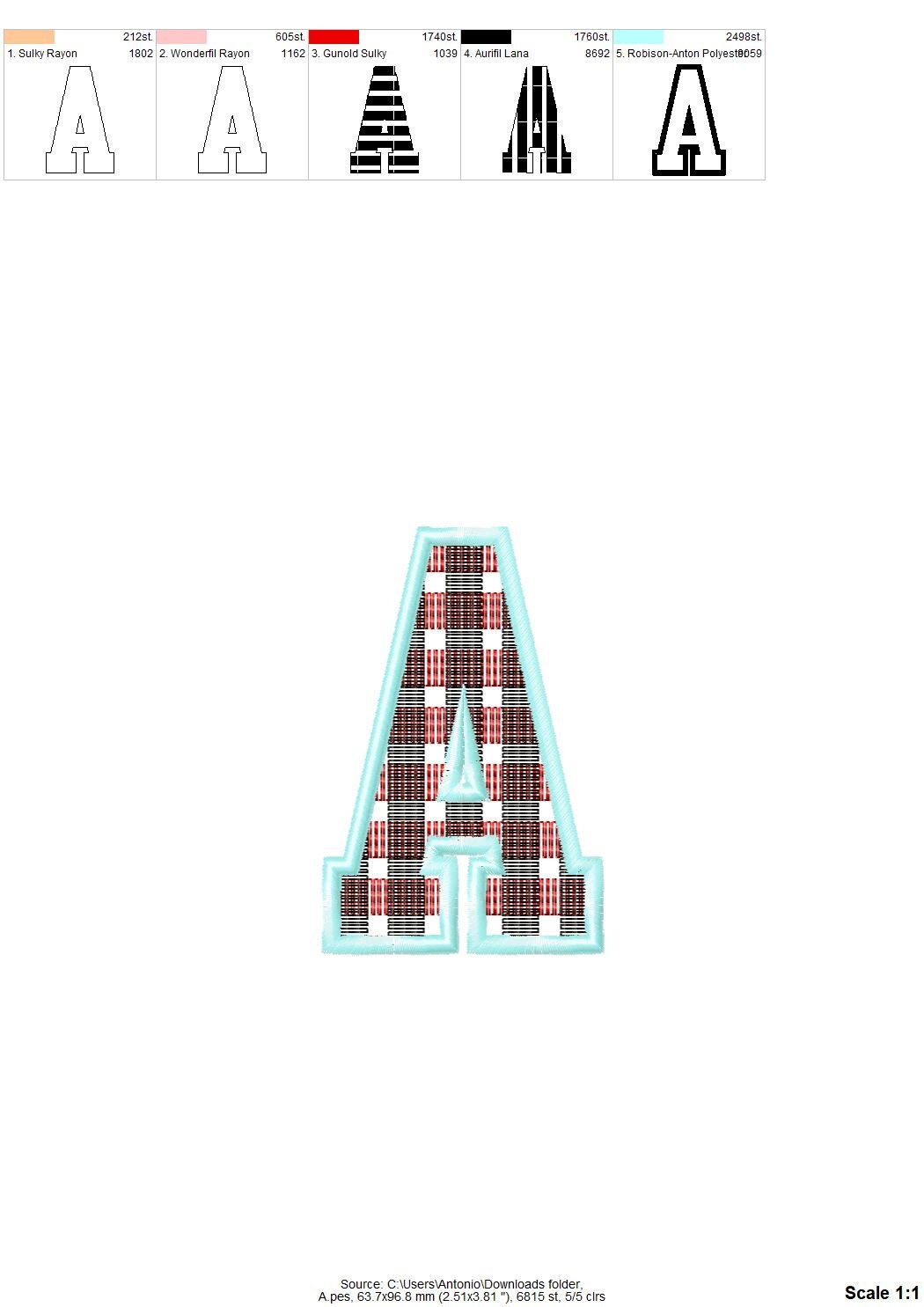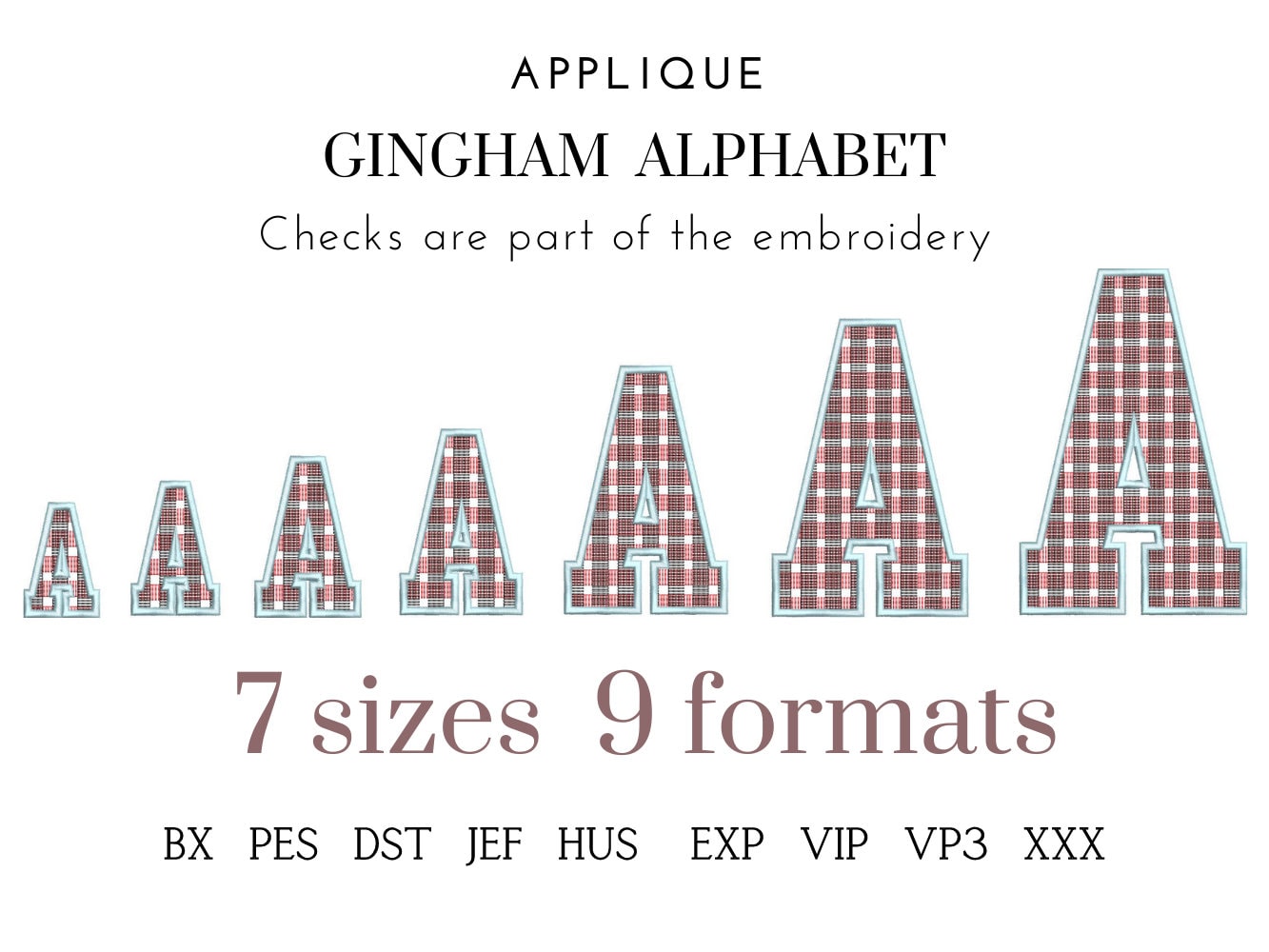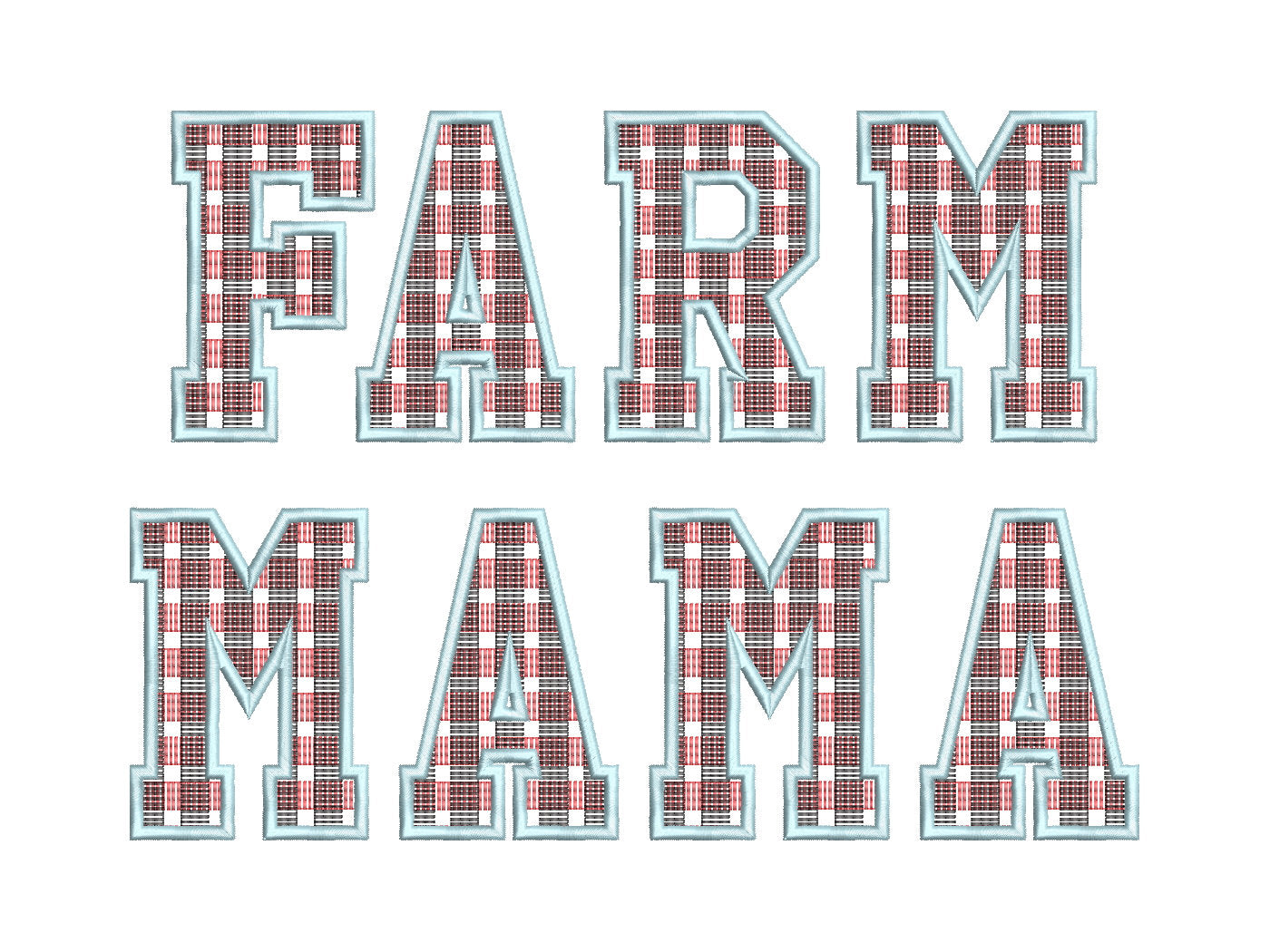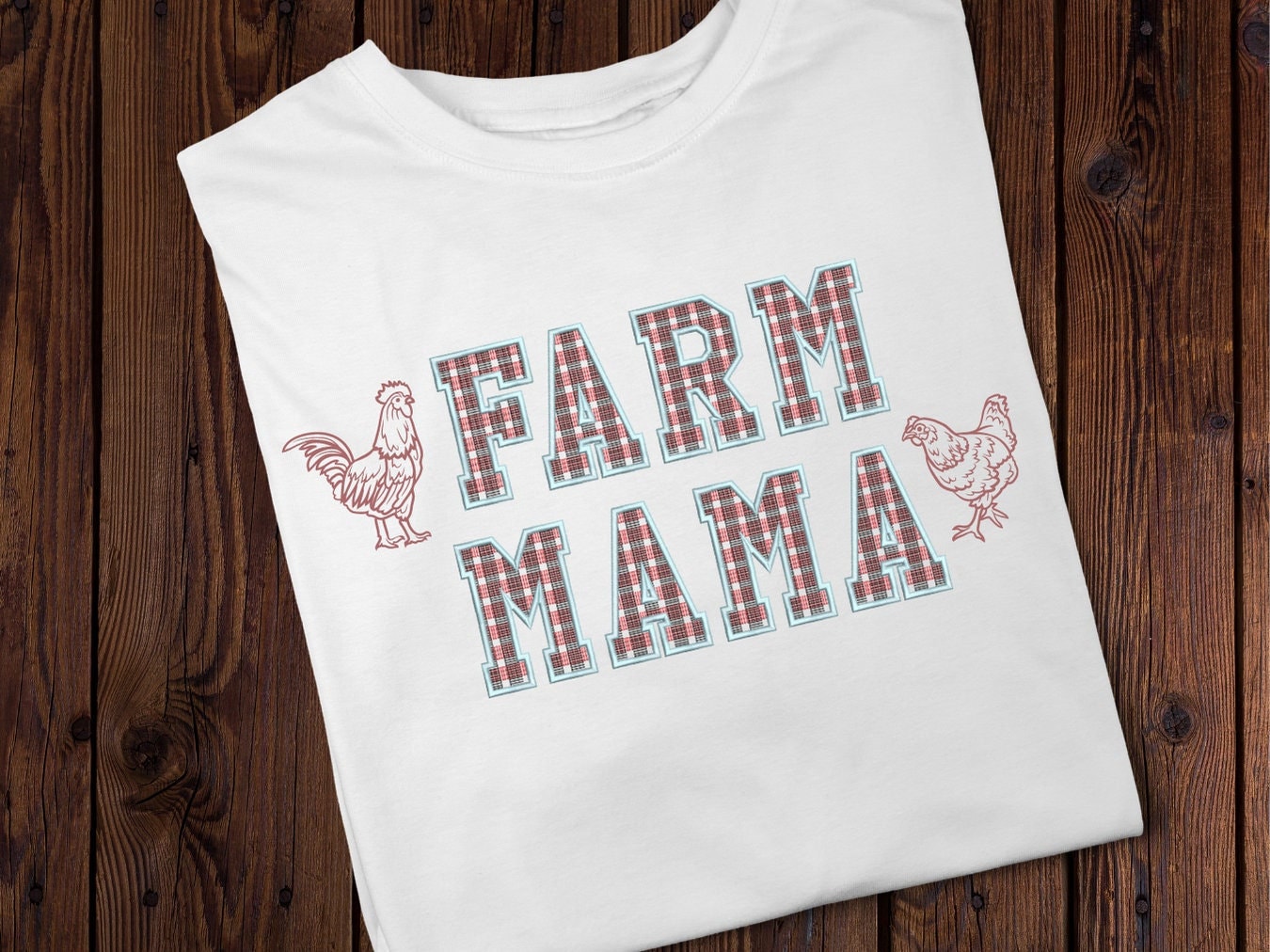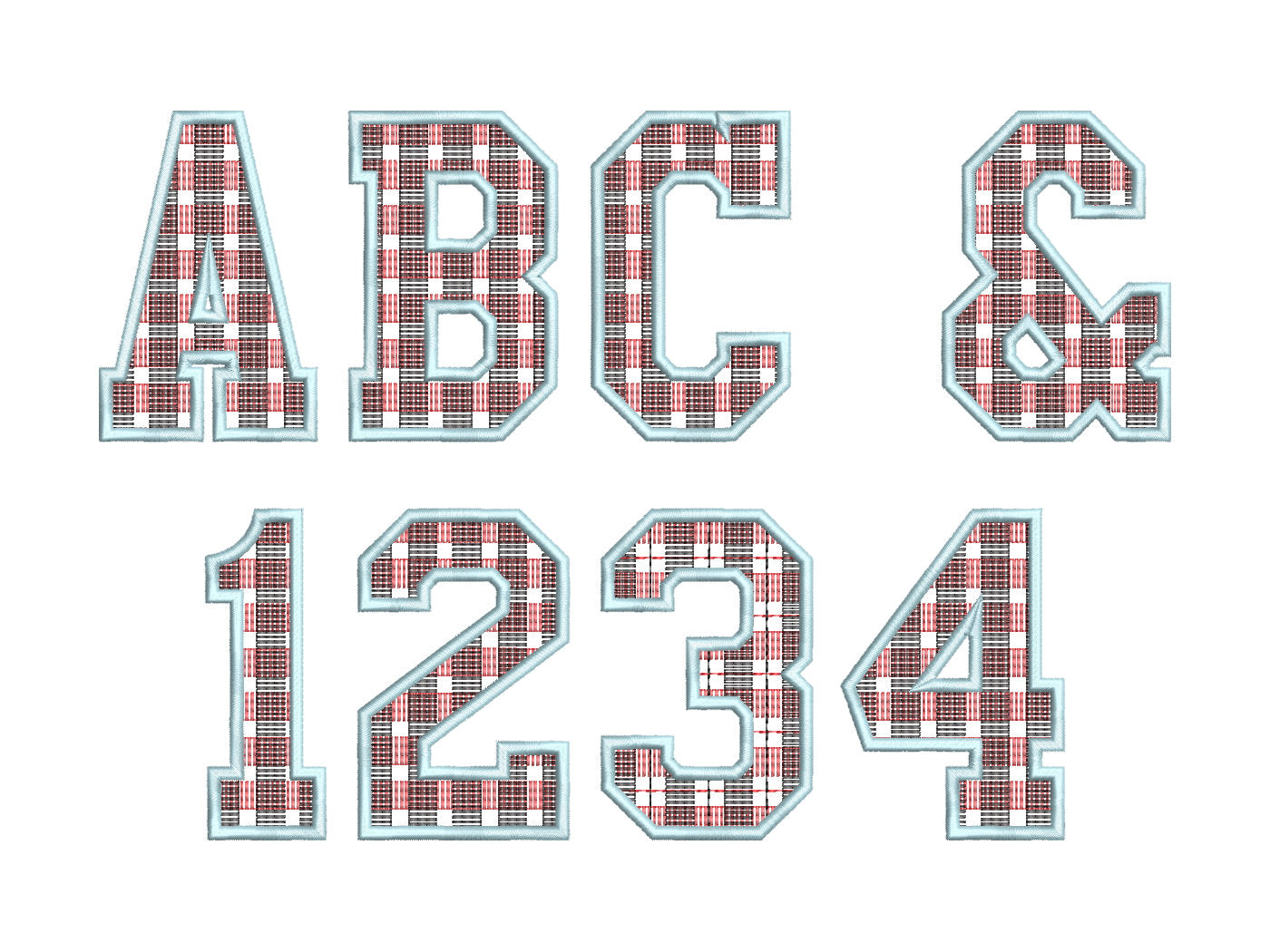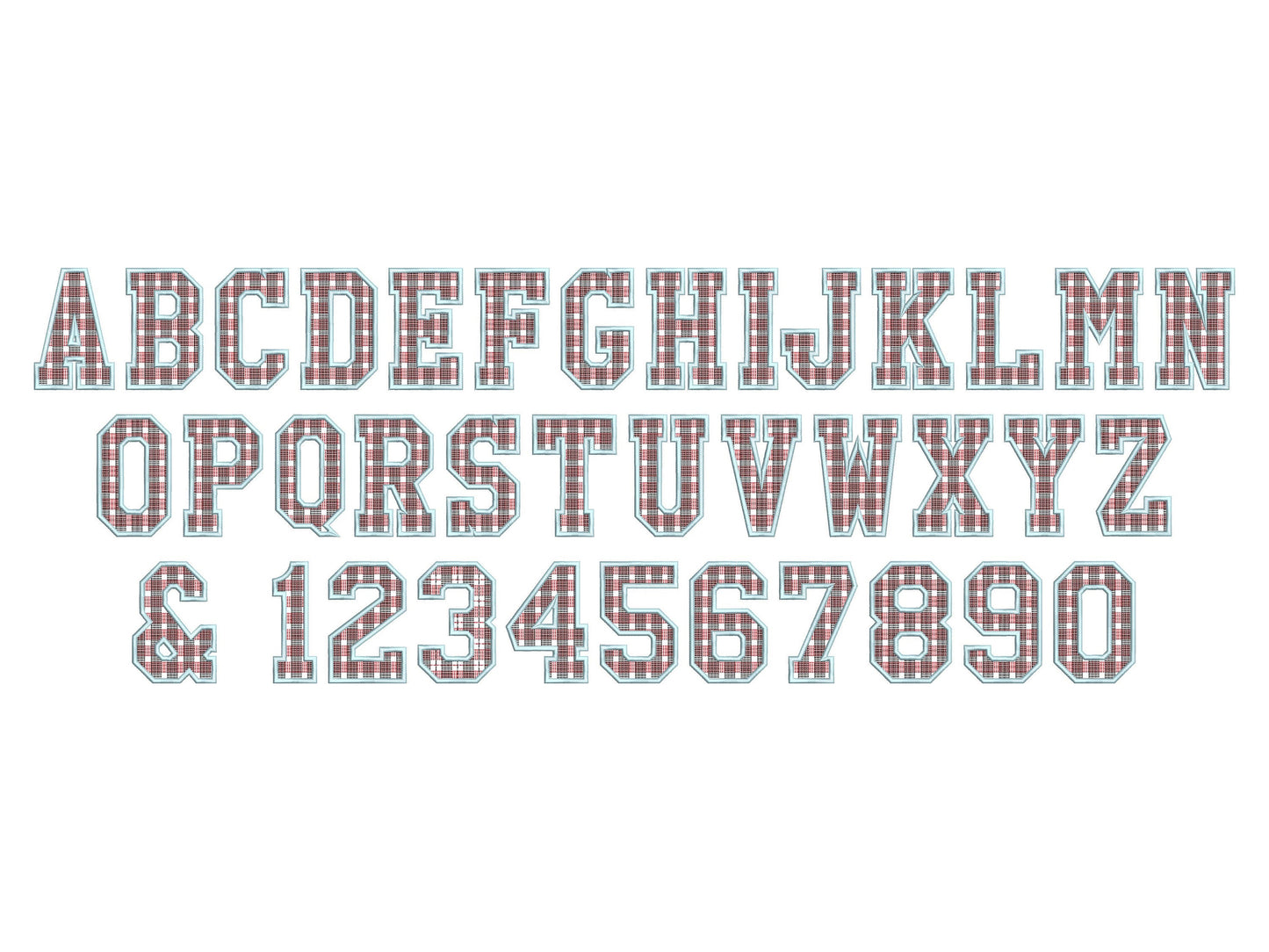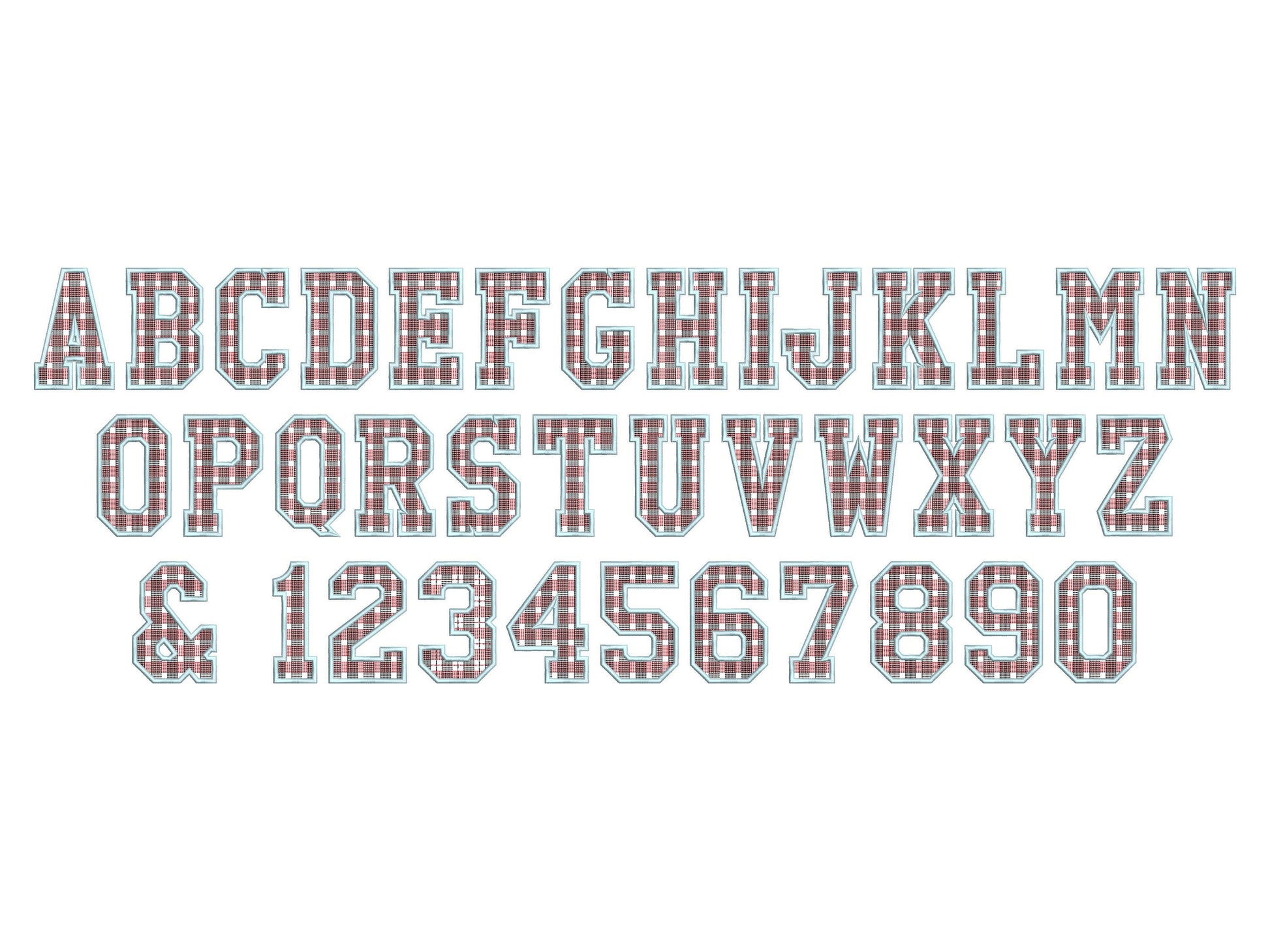
Gingham Block Font Applique Checkered Alphabet
Uppercase letters A to Z, numbers 0 to 9, an ampersand and a question mark, in seven sizes: 2.5, 3, 3.5, 4, 5, 6 and 7 inches.
- Gingham check block applique font
- Uppercase A-Z, numbers 0-9, & ?
- 7 sizes, 2.5 to 7 in